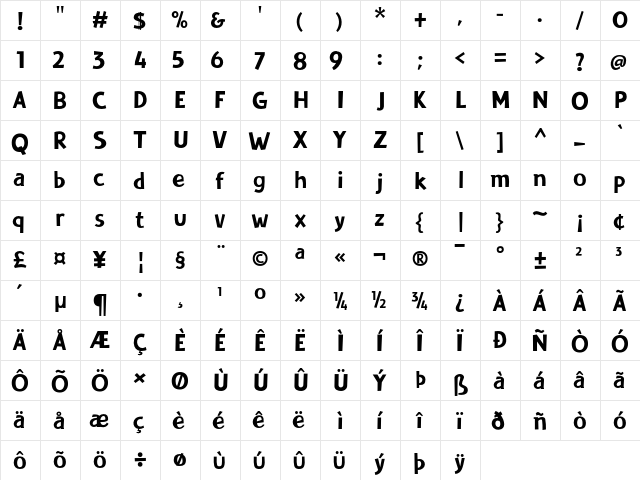
Urusans Personal Use Regular
| Designer | Andi Winarno - Inkstypia Studio |
Design Context for Urusans Personal Use Typeface
Urusans Personal Use offers clean, dependable letterforms without strong stylistic allegiance, making it a practical choice for designers who need flexibility.
Pro Tip: Use Urusans Personal Use in both headline and body roles to test its range before committing to a single application.